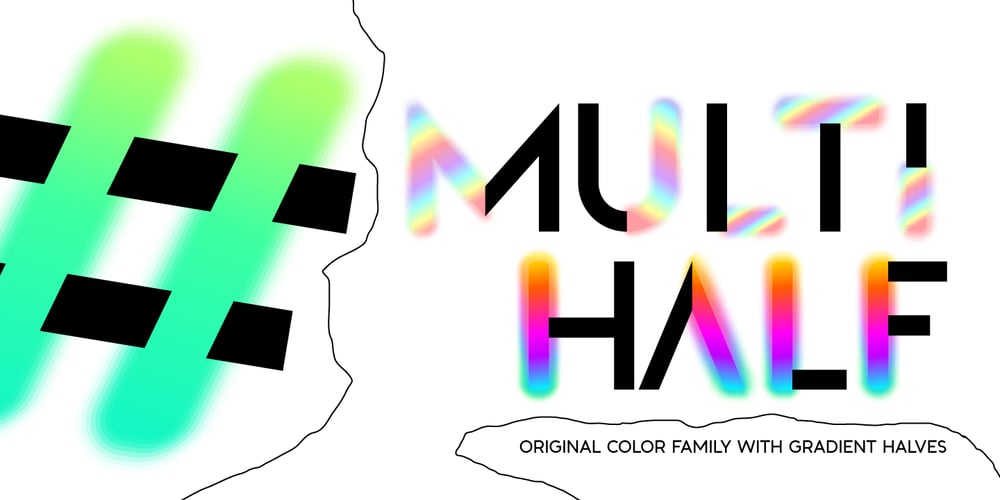
Multihalf Font Family was designed by Lauritta Ivanova and published by Luxfont. Multihalf contains 17 styles and family package options. Introducing Neotype. Abstract font family with colored halves. An interesting and unusual fonts in the glitch style. Combination of clear shapes with soft gradients. Geometric color stylization of letters.Features:- Uppercase and lowercase the same size but different colors.- Transparency in letters.- Kerning.IMPORTANT:- Check the glyphs in the font before buying!- SVG fonts contain raster letters.- Check it www.colorfonts.wtf- Try a FREE DEMO version before buying.ld.luxfont@gmail.com